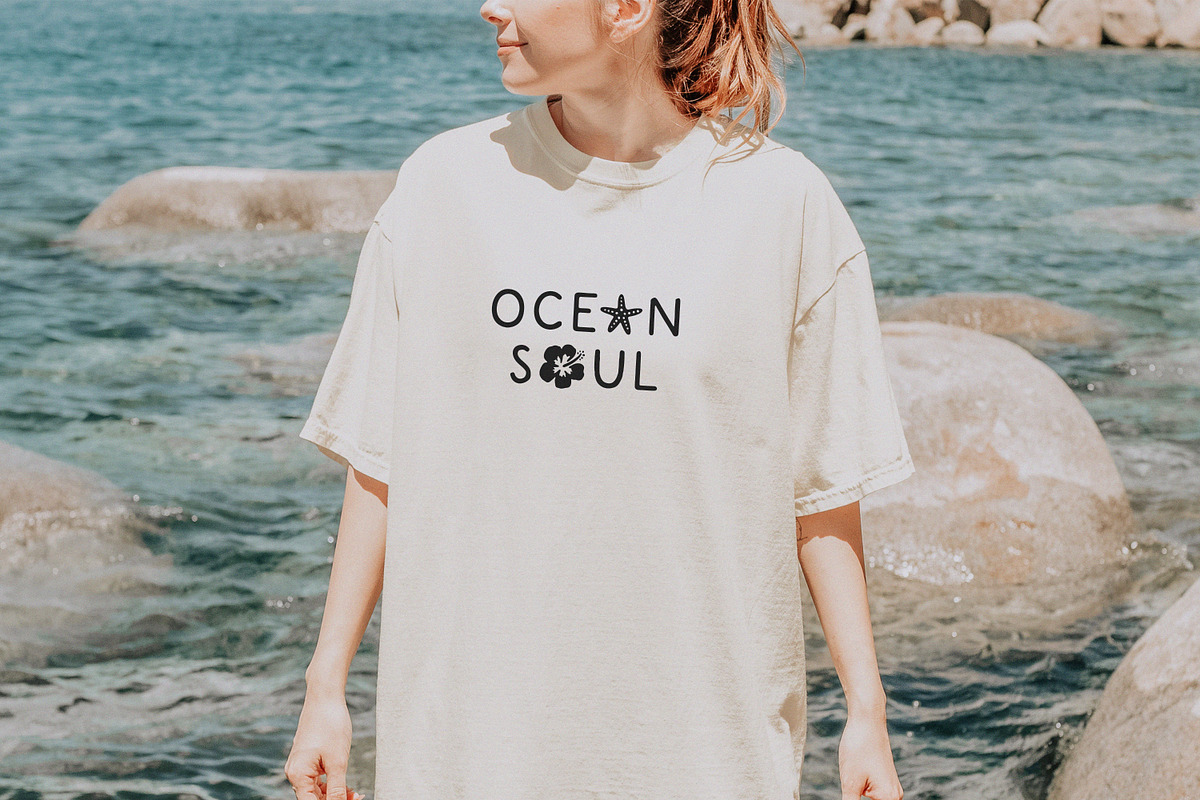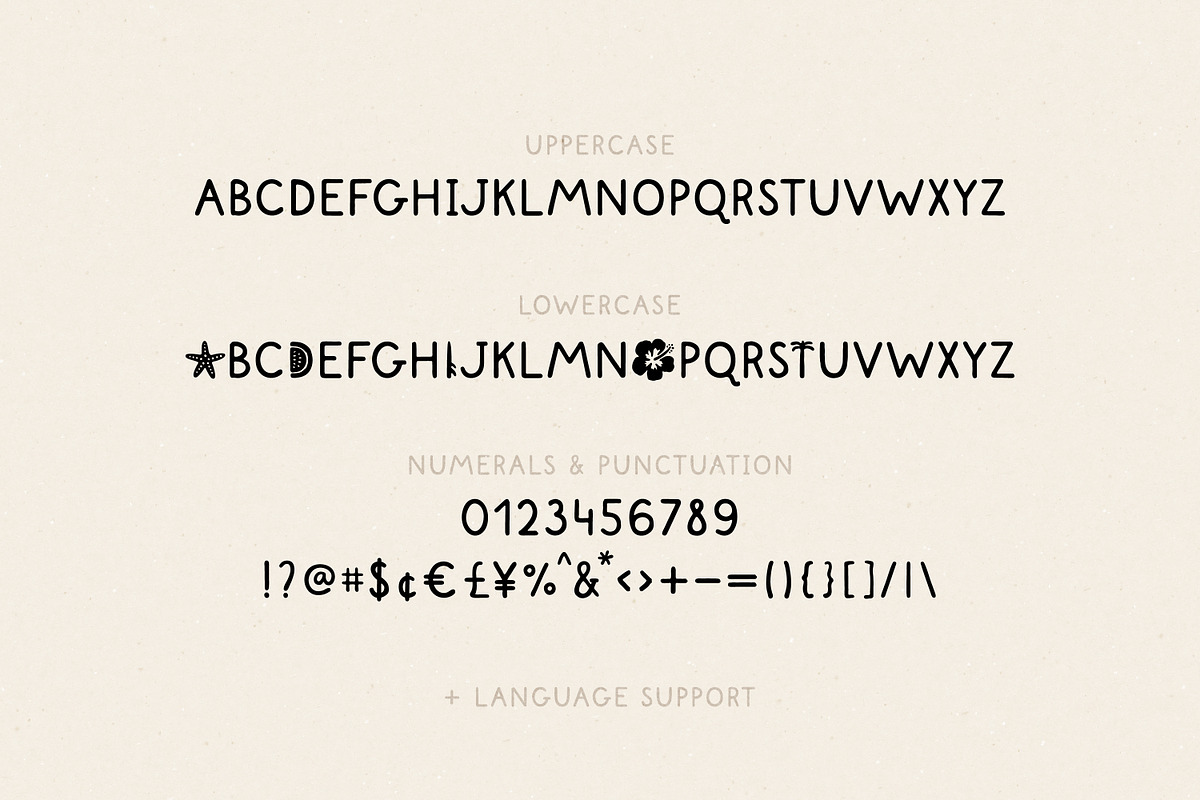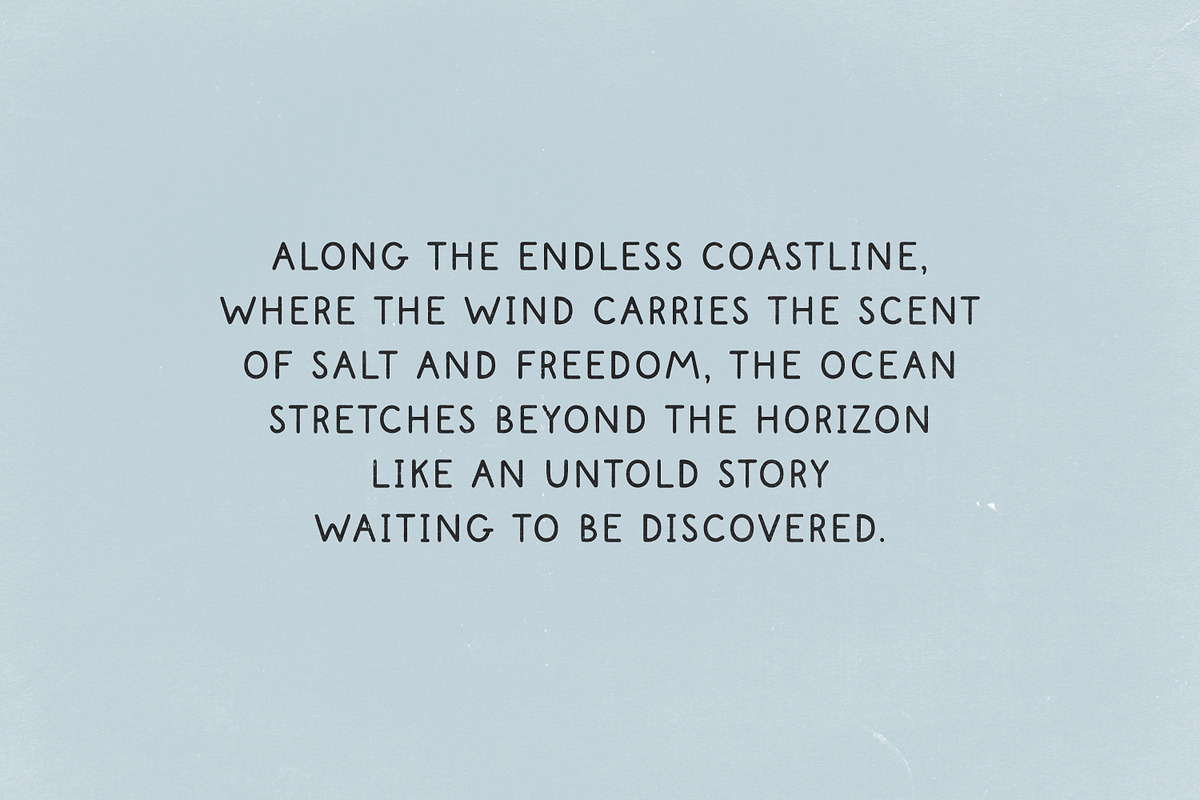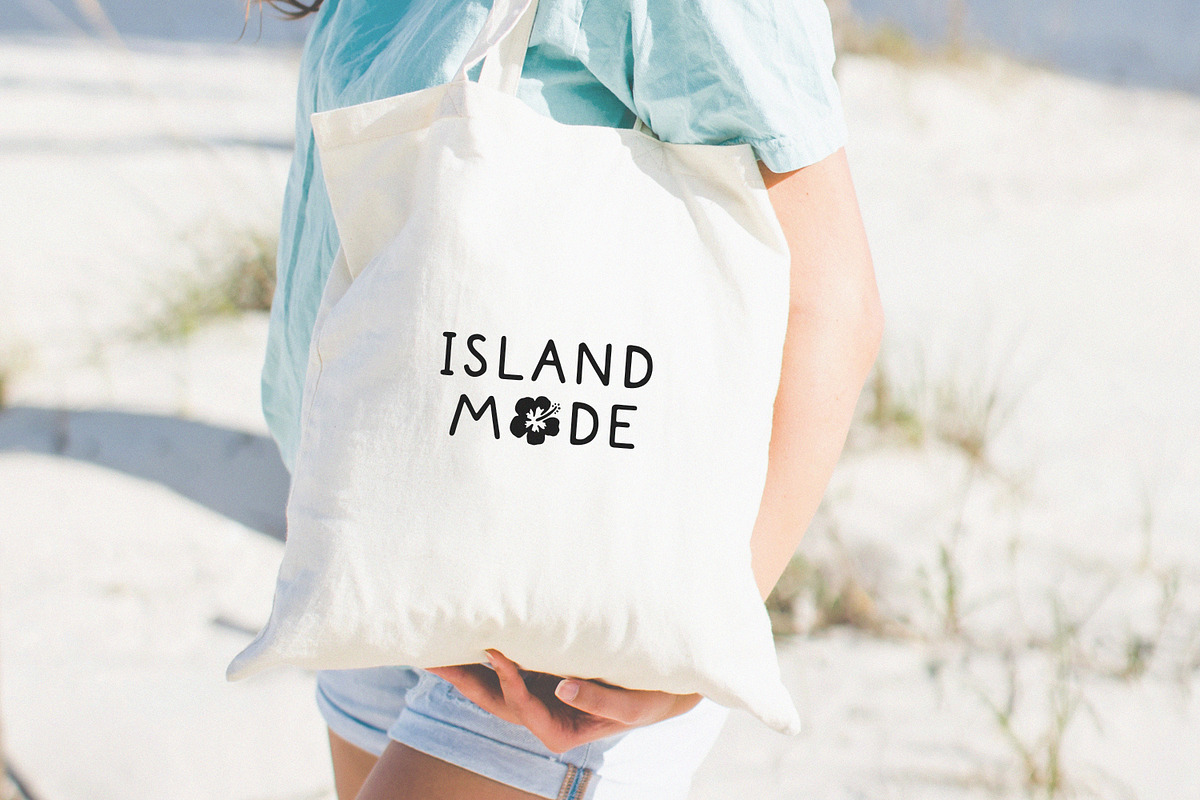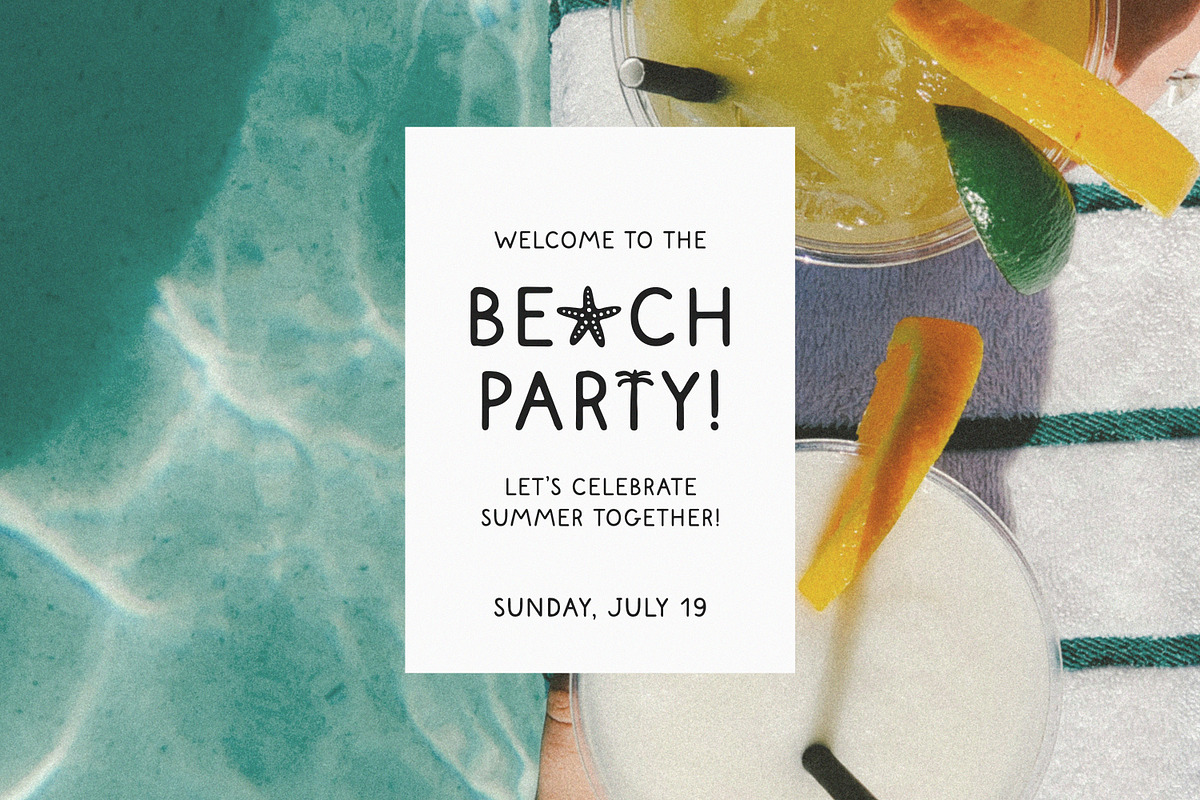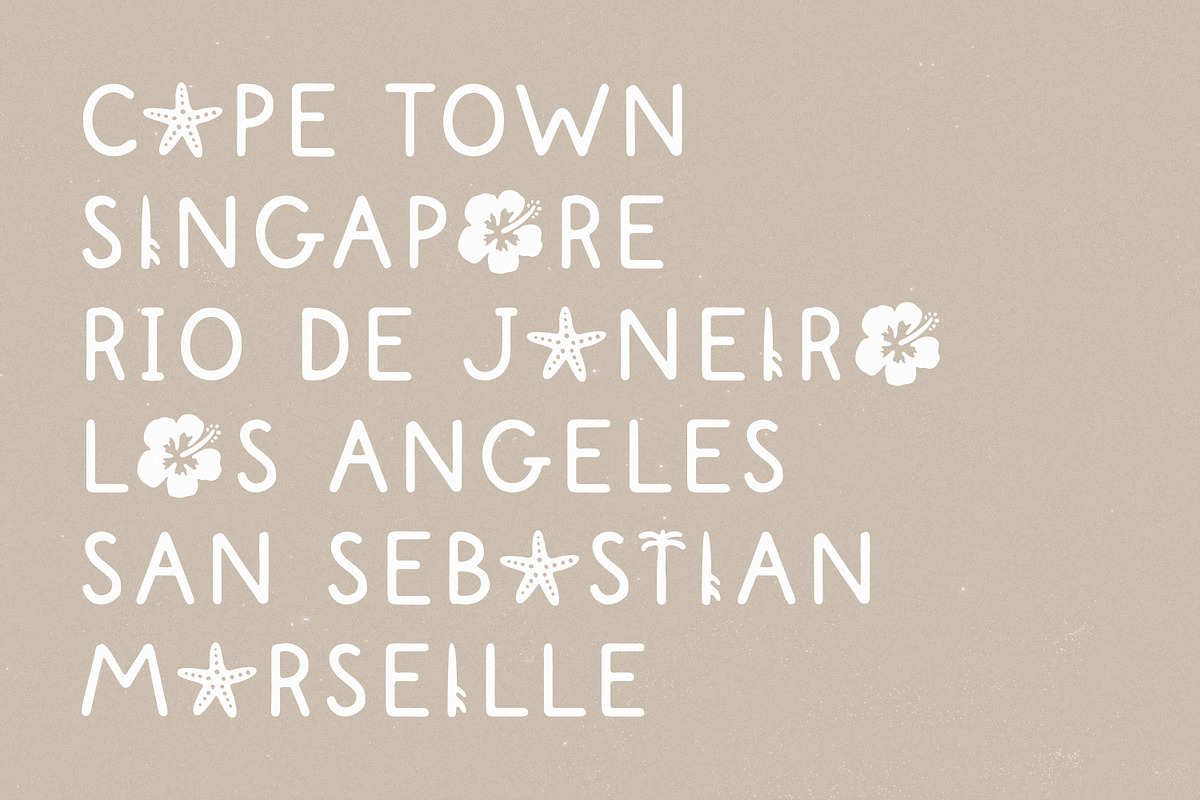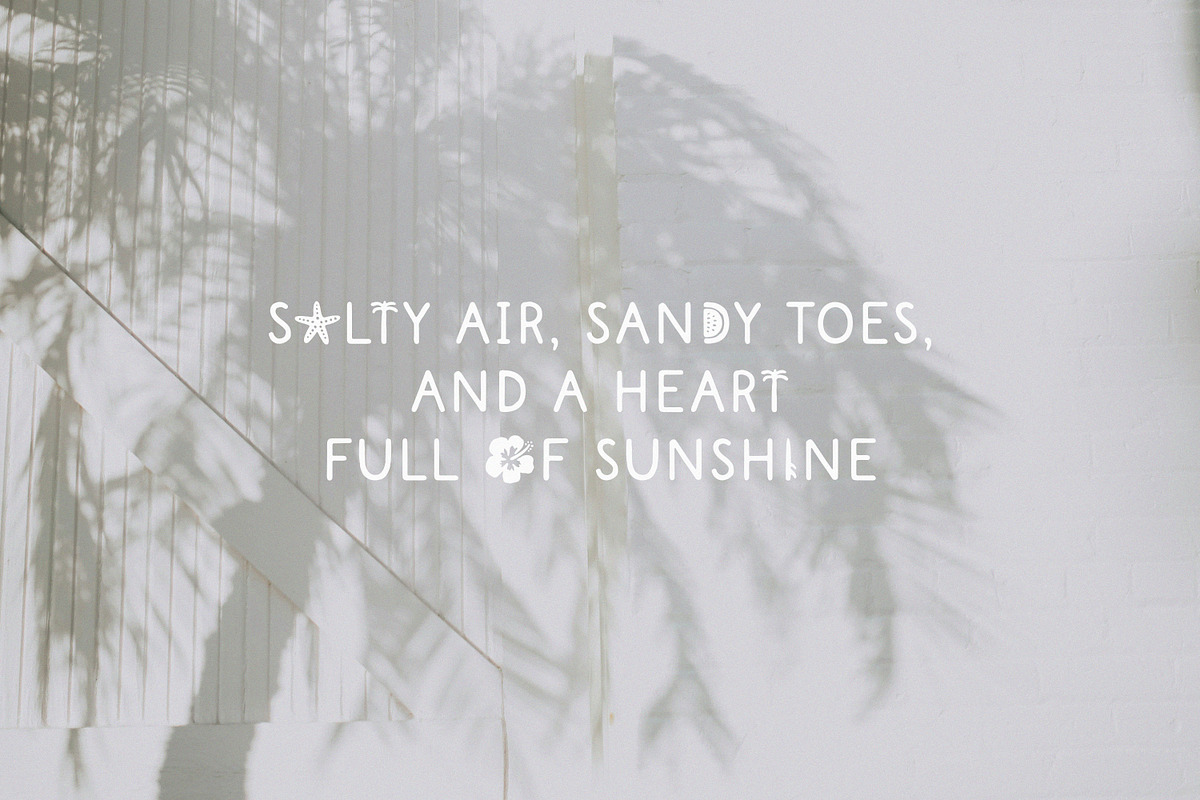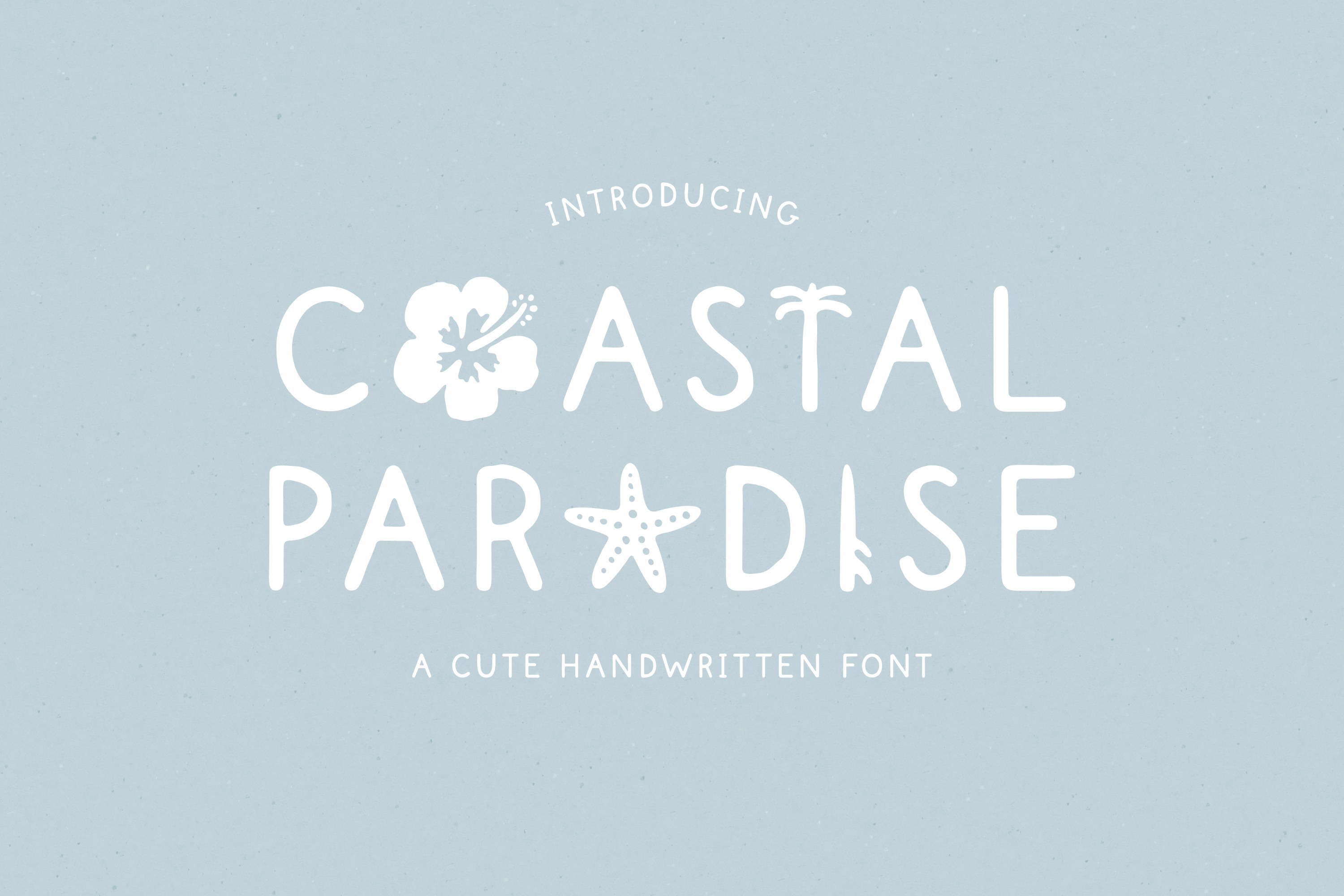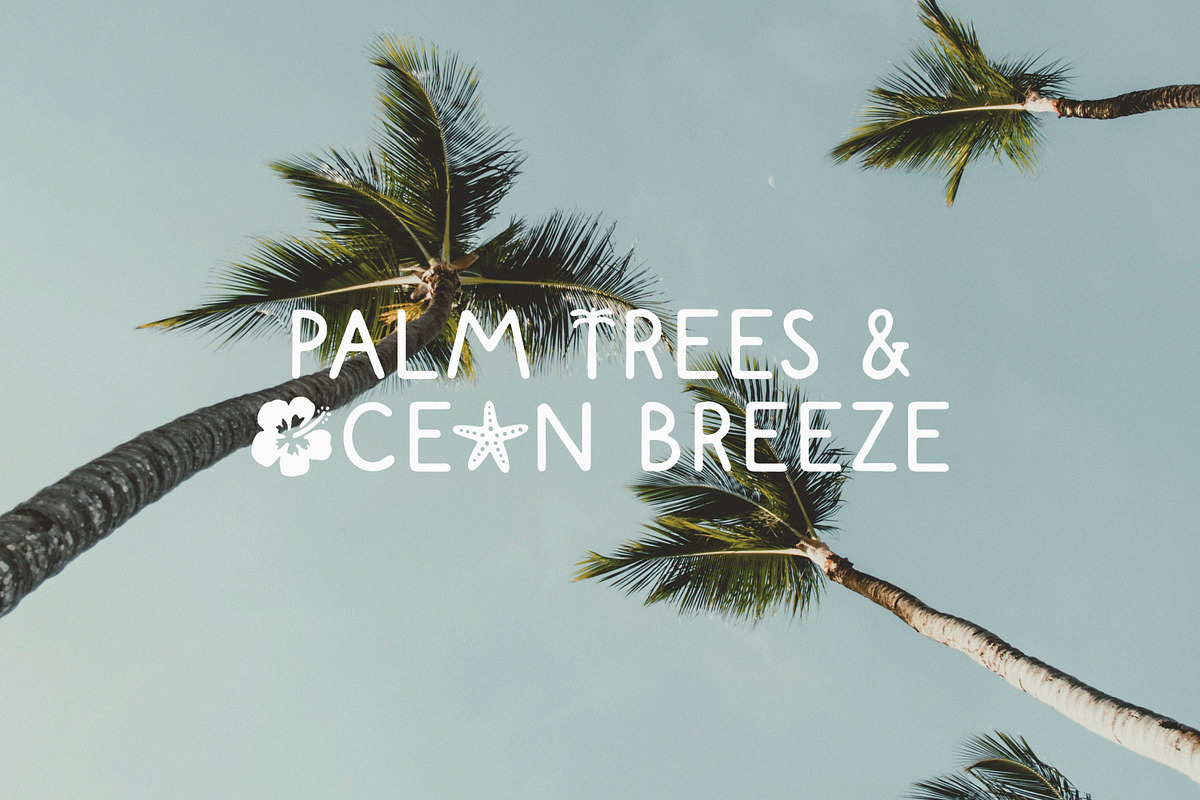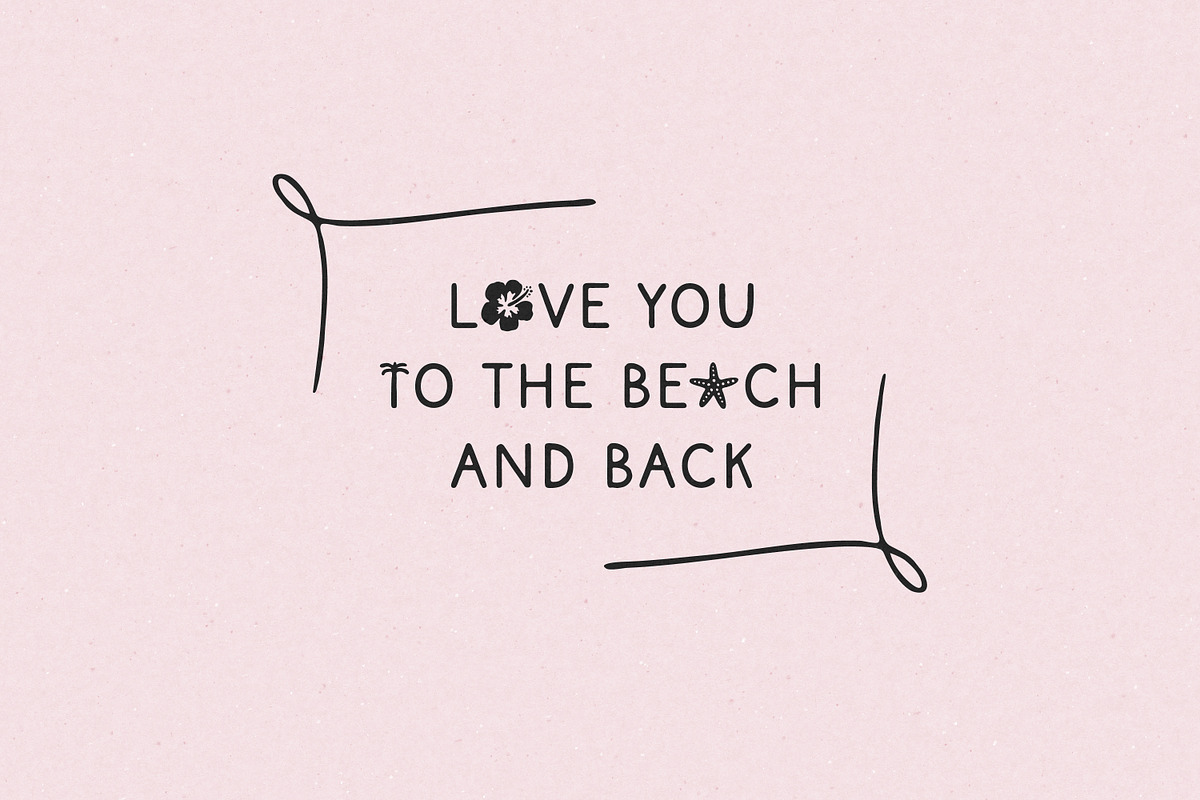
Coastal Paradise - Cute Summer Font
Coastal Paradise is a cute handwritten font with tropical and summer vibes. Perfect for playful designs, logos, branding, packaging, apparel, cards, posters, quotes, social media posts, stickers and more!